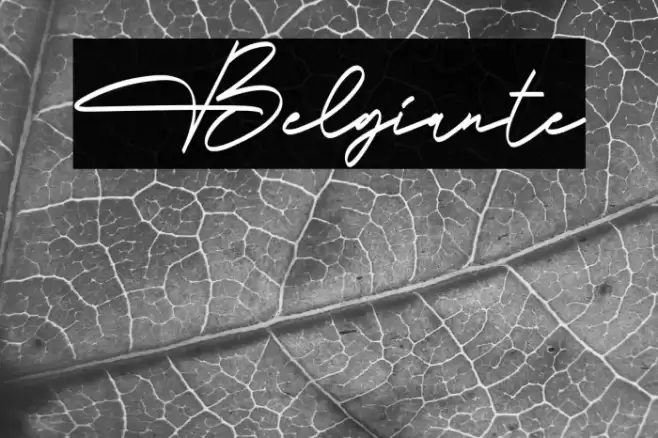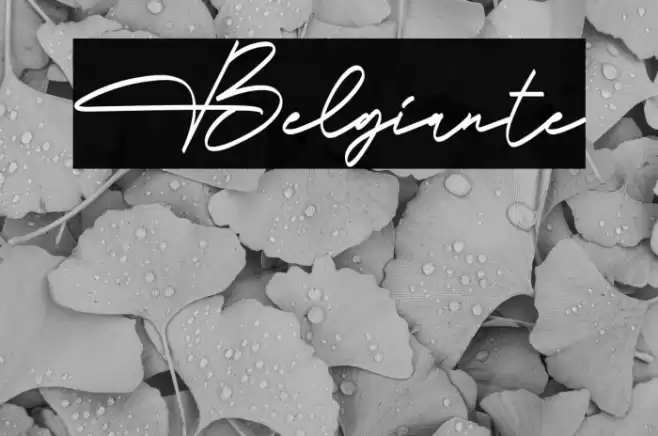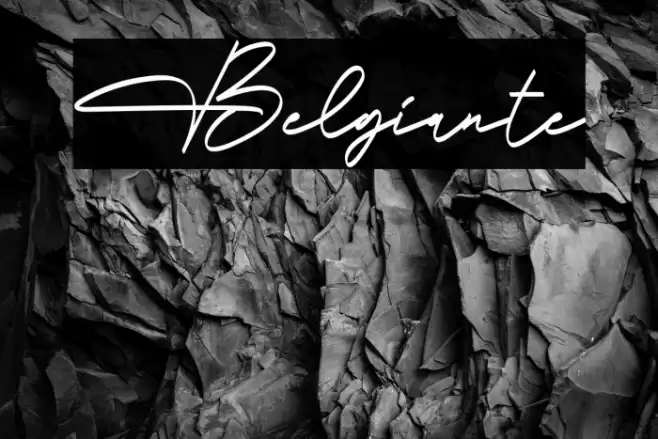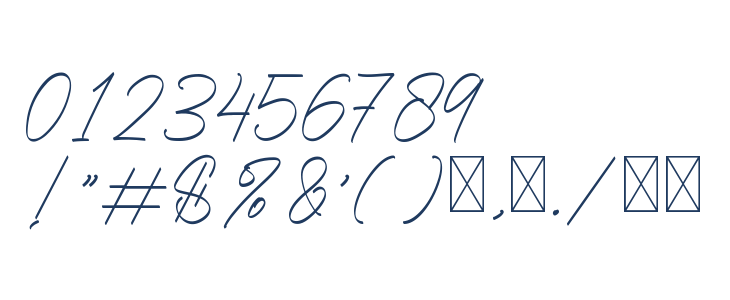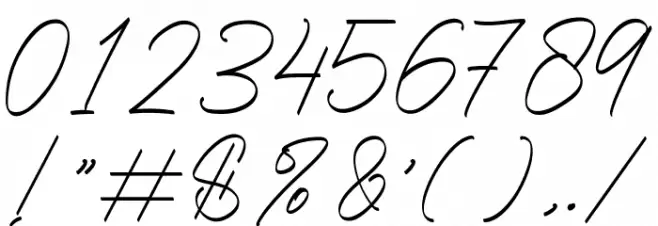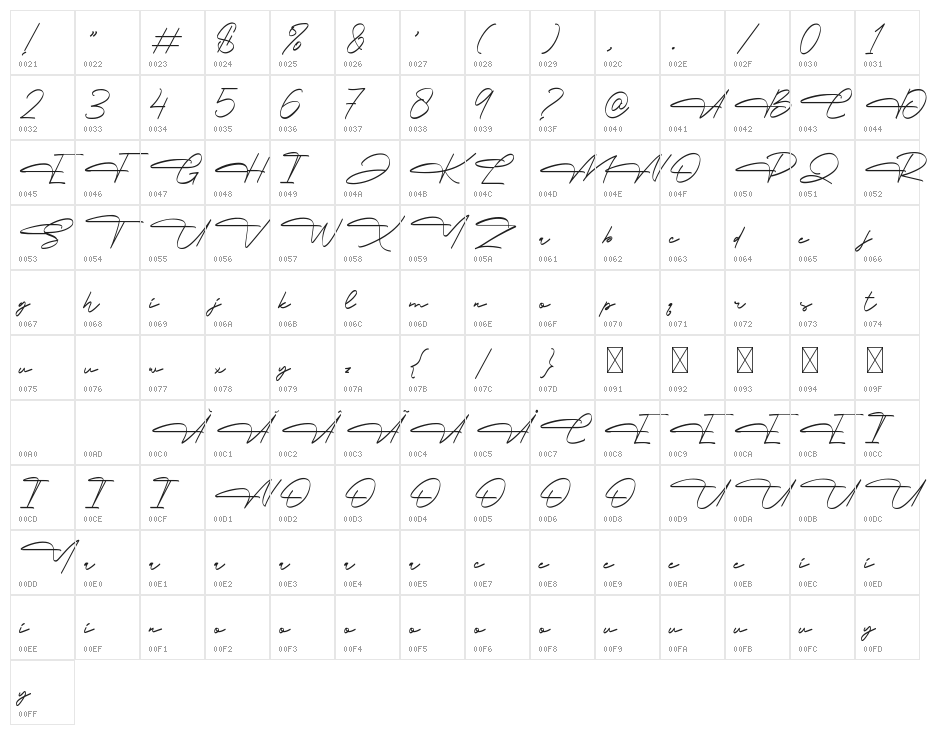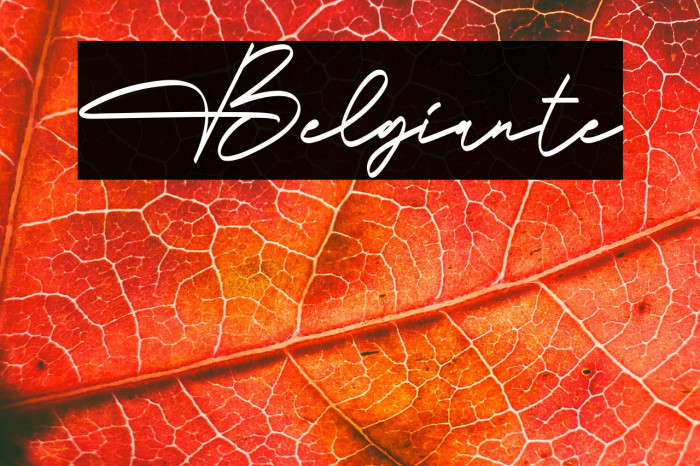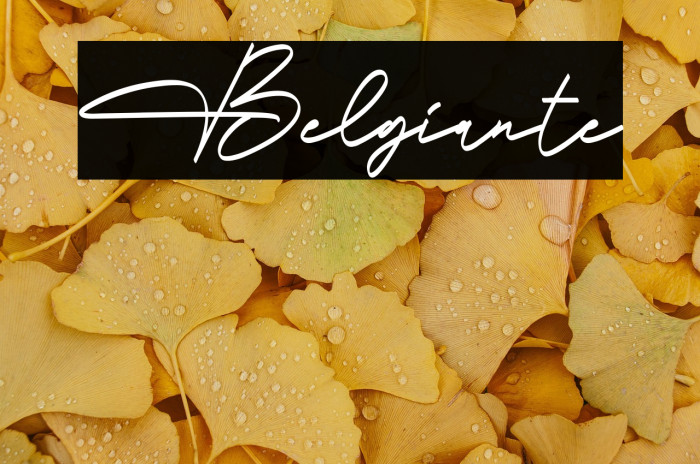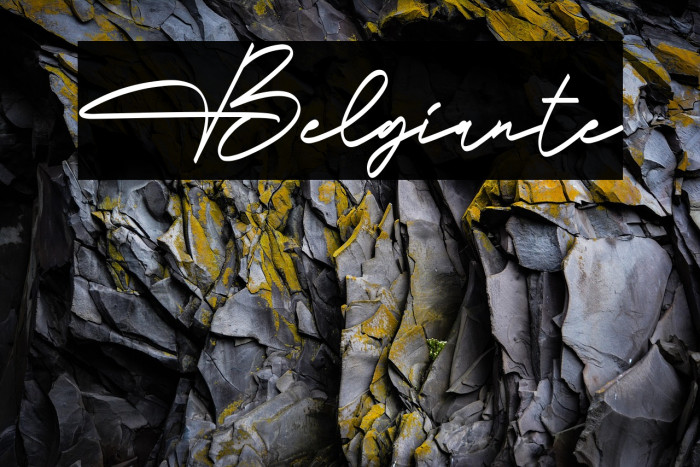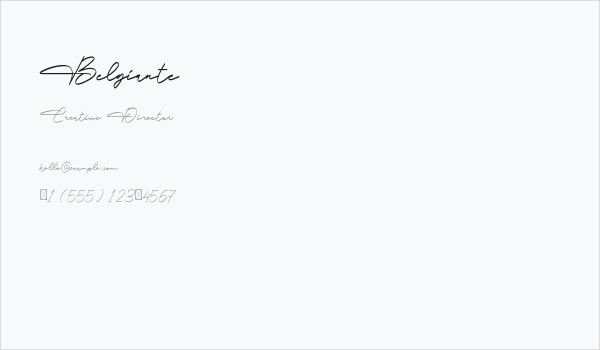
Belgiante Font
Belgiante Description
This font features a sophisticated and elegant script style, characterized by its flowing, interconnected letters that mimic natural handwriting. The uppercase letters are distinctively ornate, with elongated loops and swashes that add a touch of flair and sophistication. The lowercase letters maintain a consistent cursive style, offering a smooth and fluid appearance. The numerals are clear and legible, maintaining the script's elegant aesthetic. Special characters are creatively integrated, maintaining the overall style's continuity. This font exudes a sense of elegance and refinement, making it suitable for formal and decorative applications.
An elegant and sophisticated script font with flowing, interconnected letters from Regular fonts.
- Proposed Projects: Ideal for wedding invitations, elegant branding, personal signatures, and decorative headings.
- Overall Style: Elegant, Decorative
- Use Case: Logos, Invitations, Decorative text